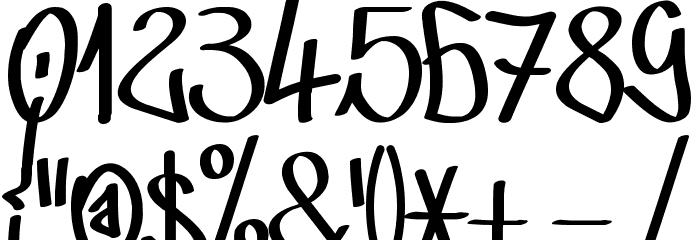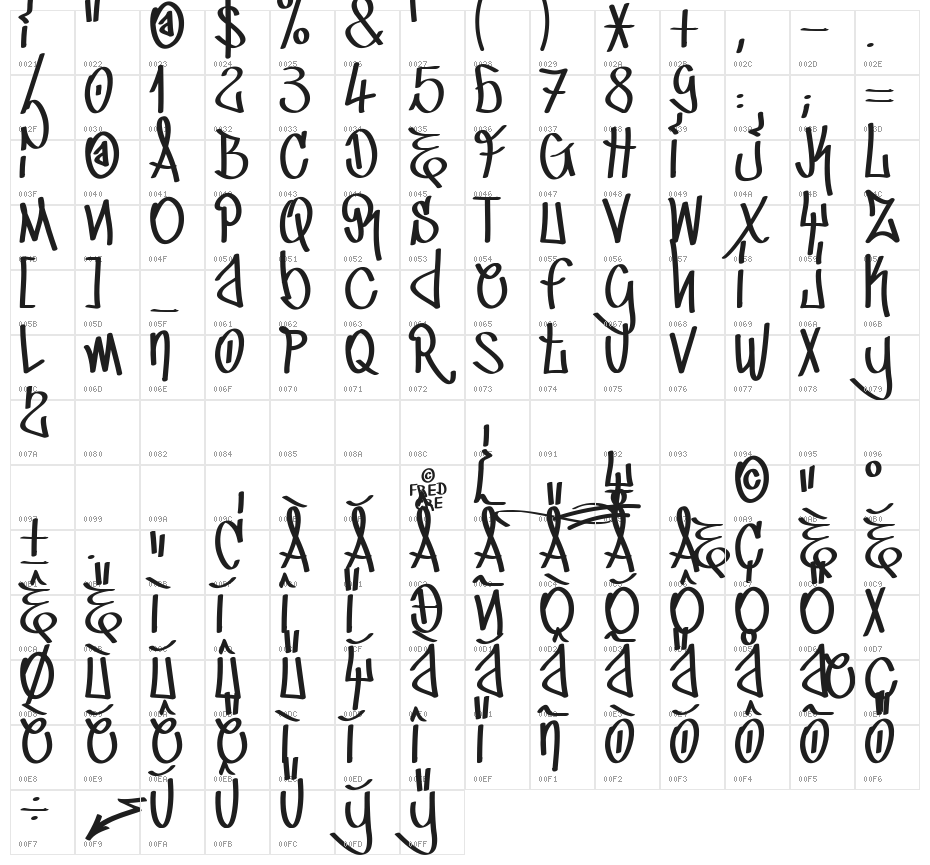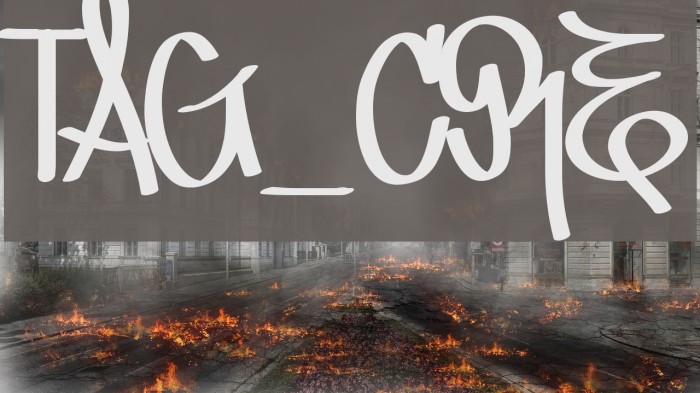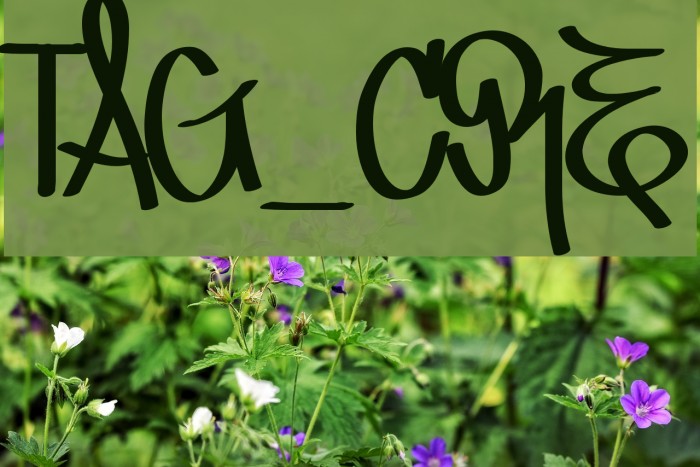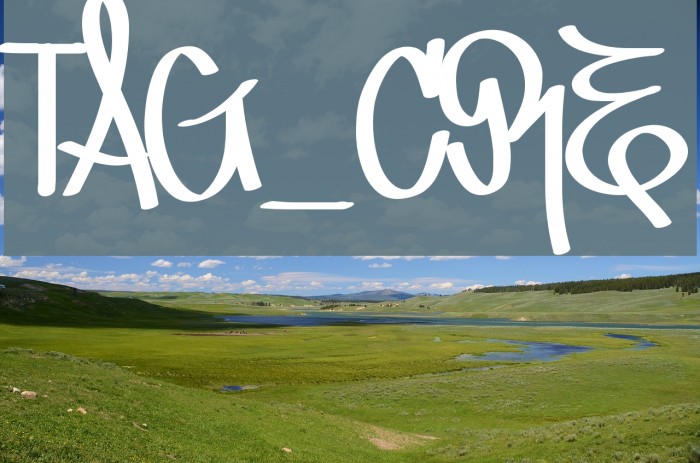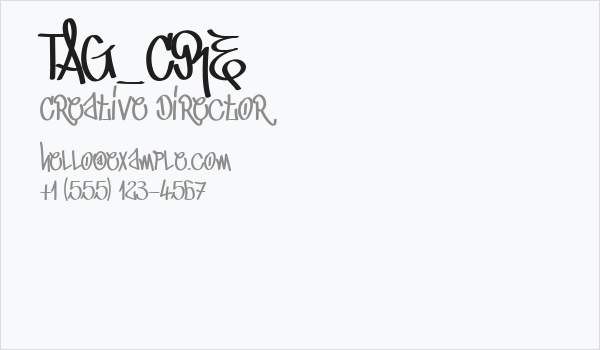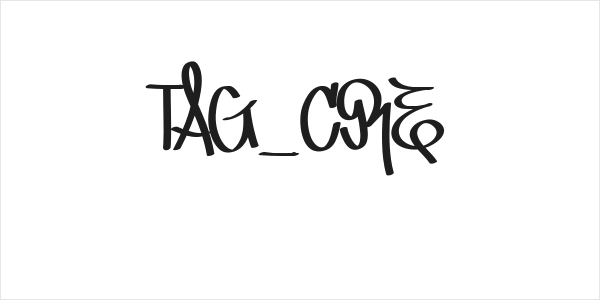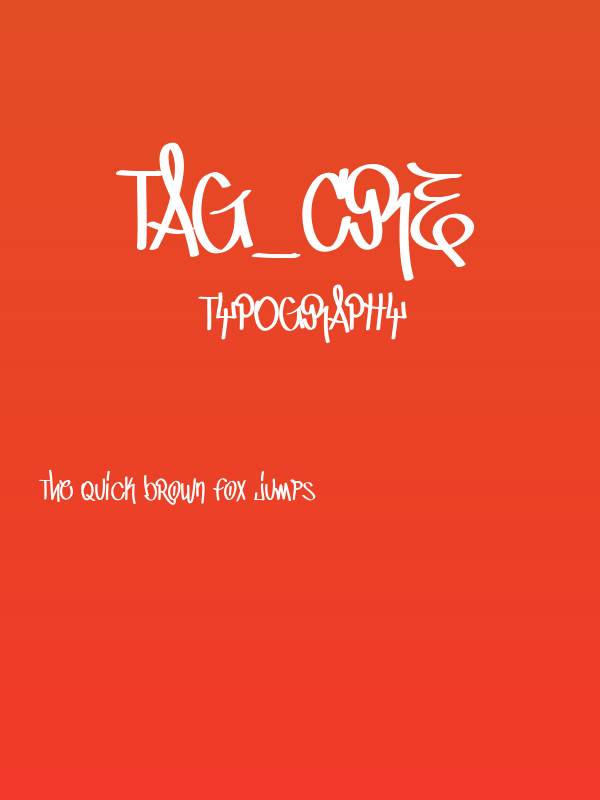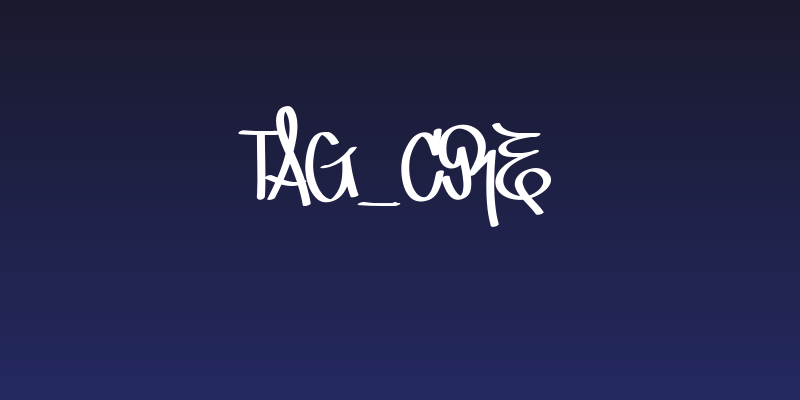
TAG_CRE Font
TAG_CRE Description
This font features a bold and expressive style with a graffiti-like appearance. The characters are highly stylized, with exaggerated curves and angles that give it a dynamic and energetic feel. The uppercase and lowercase letters maintain a consistent flow, while the numerals and special characters complement the overall aesthetic. The font's playful and artistic nature makes it stand out, suitable for projects that require a unique and eye-catching design.
| Overall Style | Modern, Urban |
| Proposed Projects | Ideal for street art designs, urban-themed posters, music album covers, and creative branding projects. |